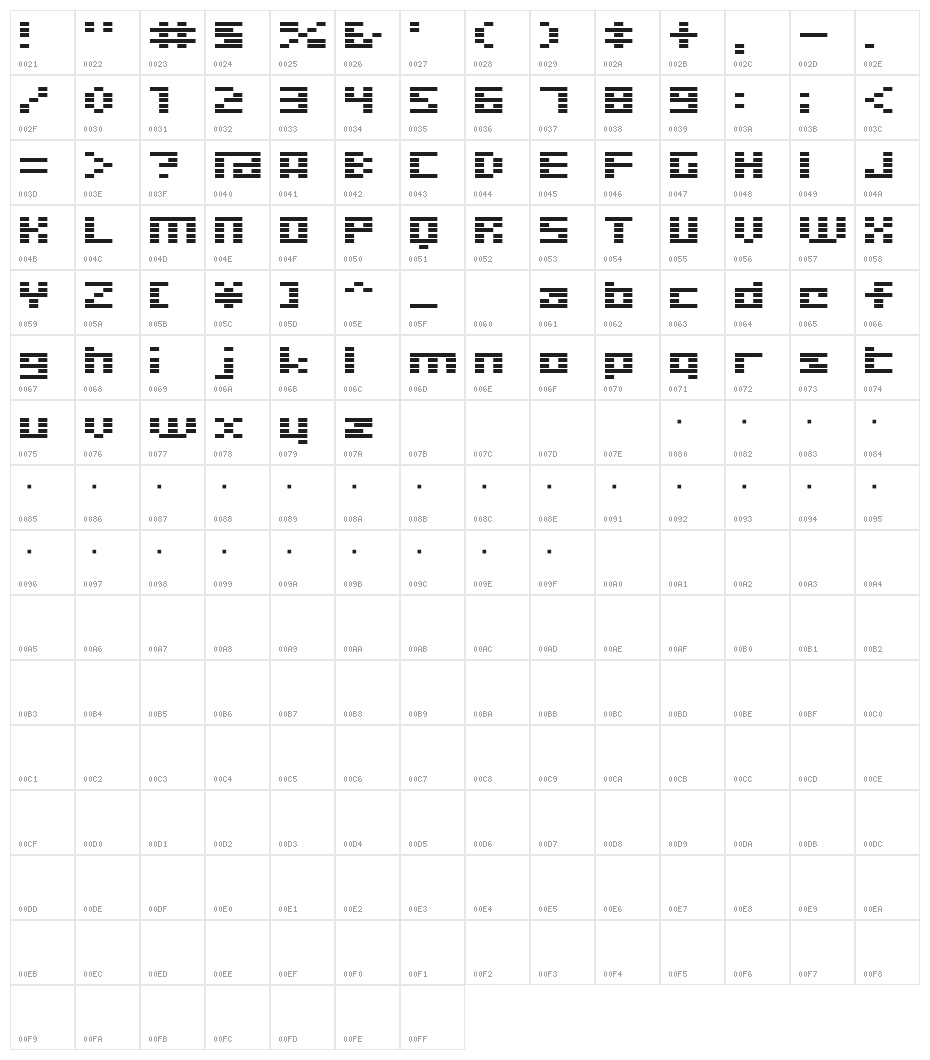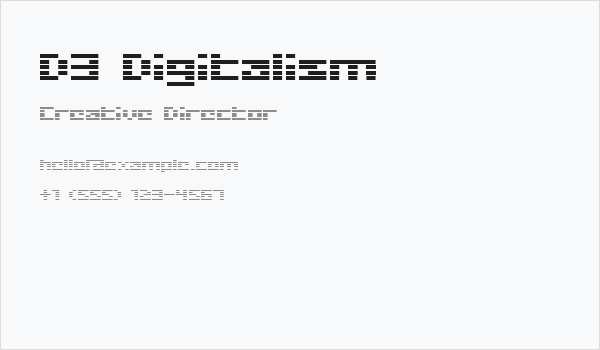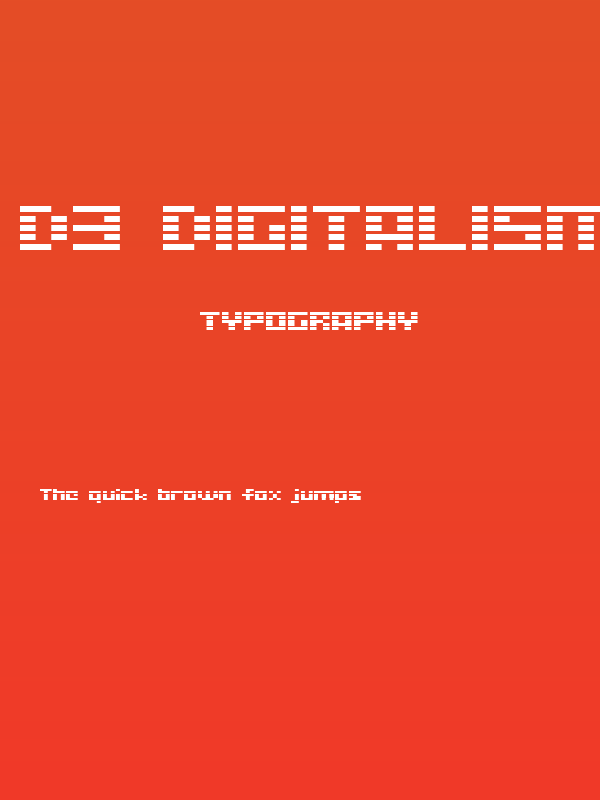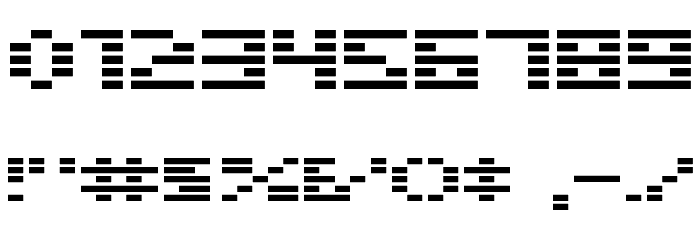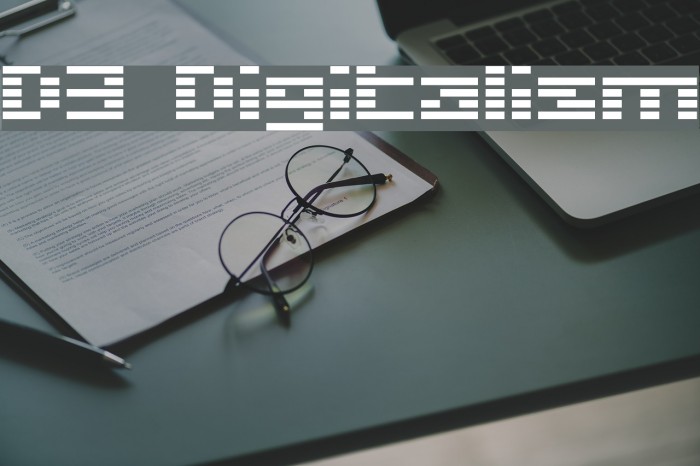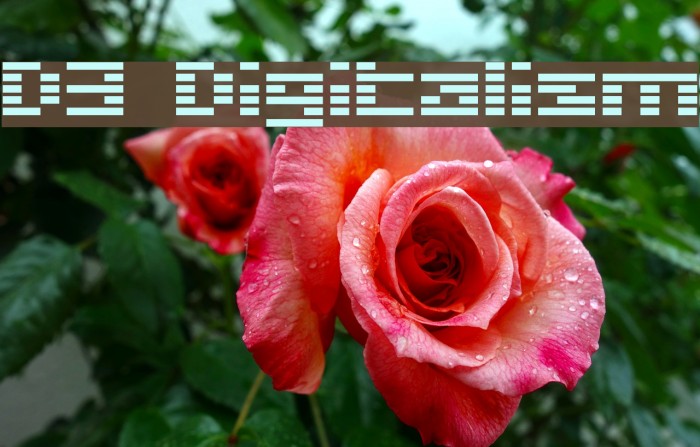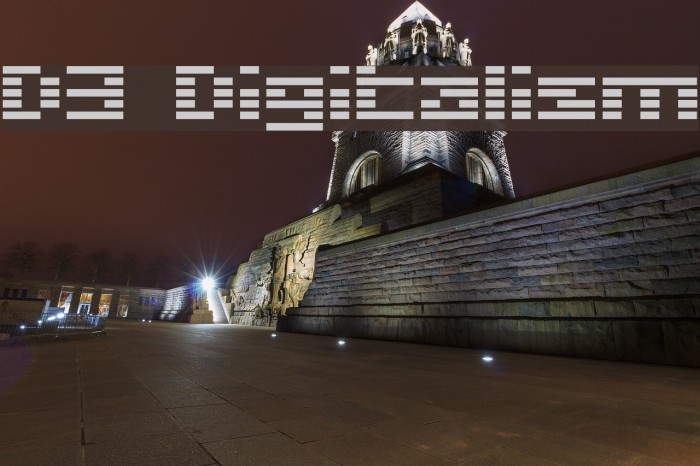
D3 Digitalism Font
D3 Digitalism Description
This font features a distinct digital aesthetic reminiscent of old-school LED displays and digital clocks. Each character is constructed using a grid-like pattern of horizontal and vertical lines, creating a pixelated effect that is both retro and futuristic. The uppercase and lowercase letters maintain a consistent style, with the uppercase being slightly more pronounced. Numbers and special characters follow the same design principles, ensuring uniformity across all glyphs. The font's geometric structure and uniform line thickness contribute to its digital and technical appearance, making it ideal for projects that require a modern, tech-savvy look.
| Proposed Projects | Ideal for digital-themed projects, tech branding, video game interfaces, and retro-futuristic designs. |